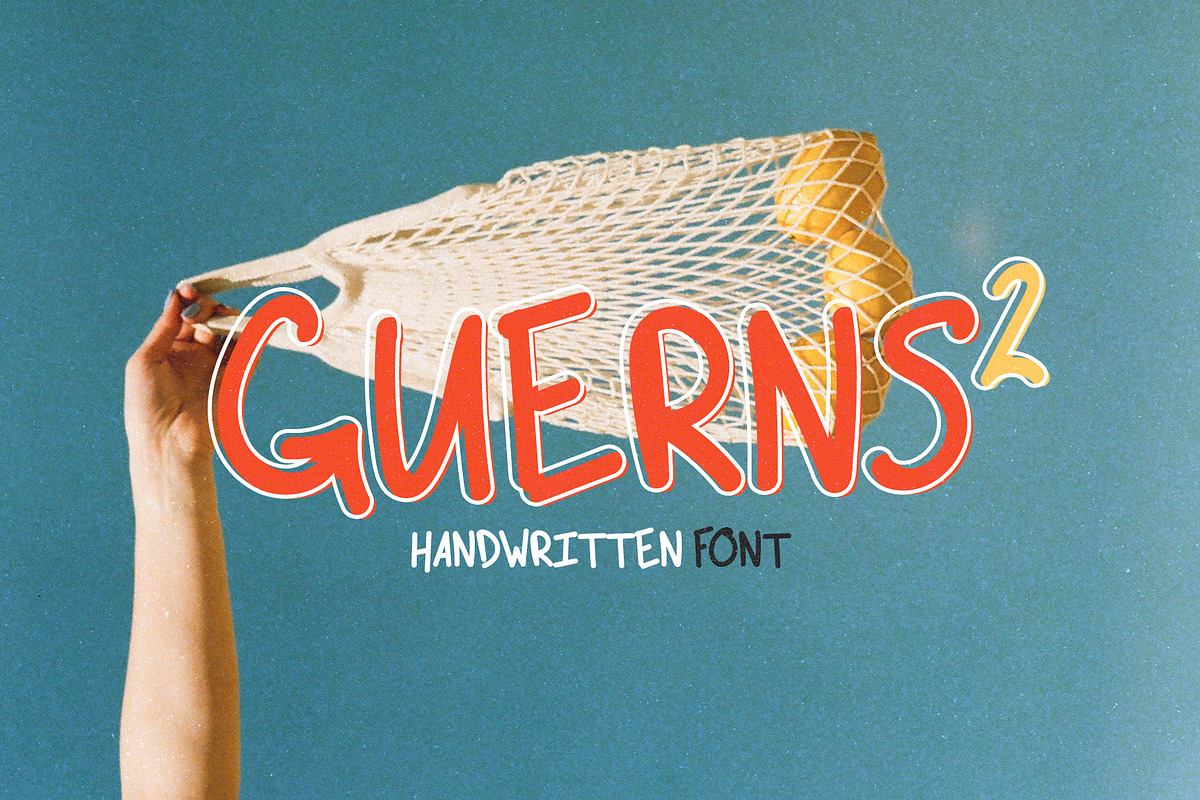
Guerns 2 | Handwritten Font Free Download
Guerns 2 | Handwritten Font Free Download is a stylish and elegant handwritten font designed to give your projects a natural, personal touch. Featuring fluid strokes, smooth curves, and an authentic hand-drawn feel, this font is perfect for logos, invitations, greeting cards, social media graphics, and any design that requires a sophisticated, yet approachable vibe.
Its versatile design allows it to work beautifully in both formal and informal contexts, making it ideal for both personal and professional projects. Whether you’re crafting a brand identity, designing an elegant invitation, or creating custom typography, Guerns 2 adds a unique, creative flair to your work.